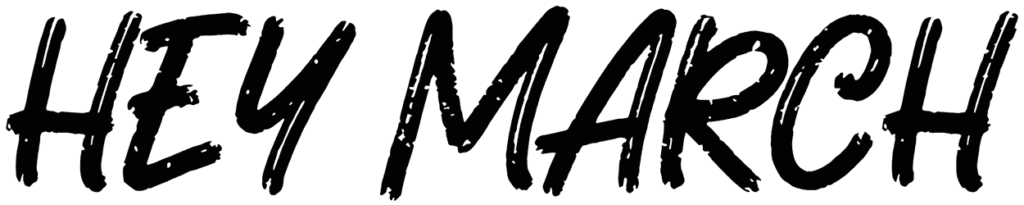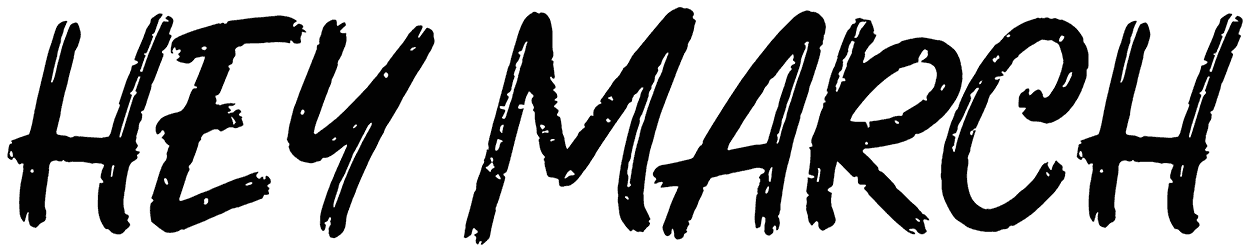
Hey March Font
With a hand-drawn and natural style of a brush font like Hey March, you can easily give a dynamic vibe to your words. This script font, with its almost full characters, can become a powerful part of your modern design. Don’t miss this chance and test the Hey March font for your coming project, like a party night club flyer, and capture lots of attention.